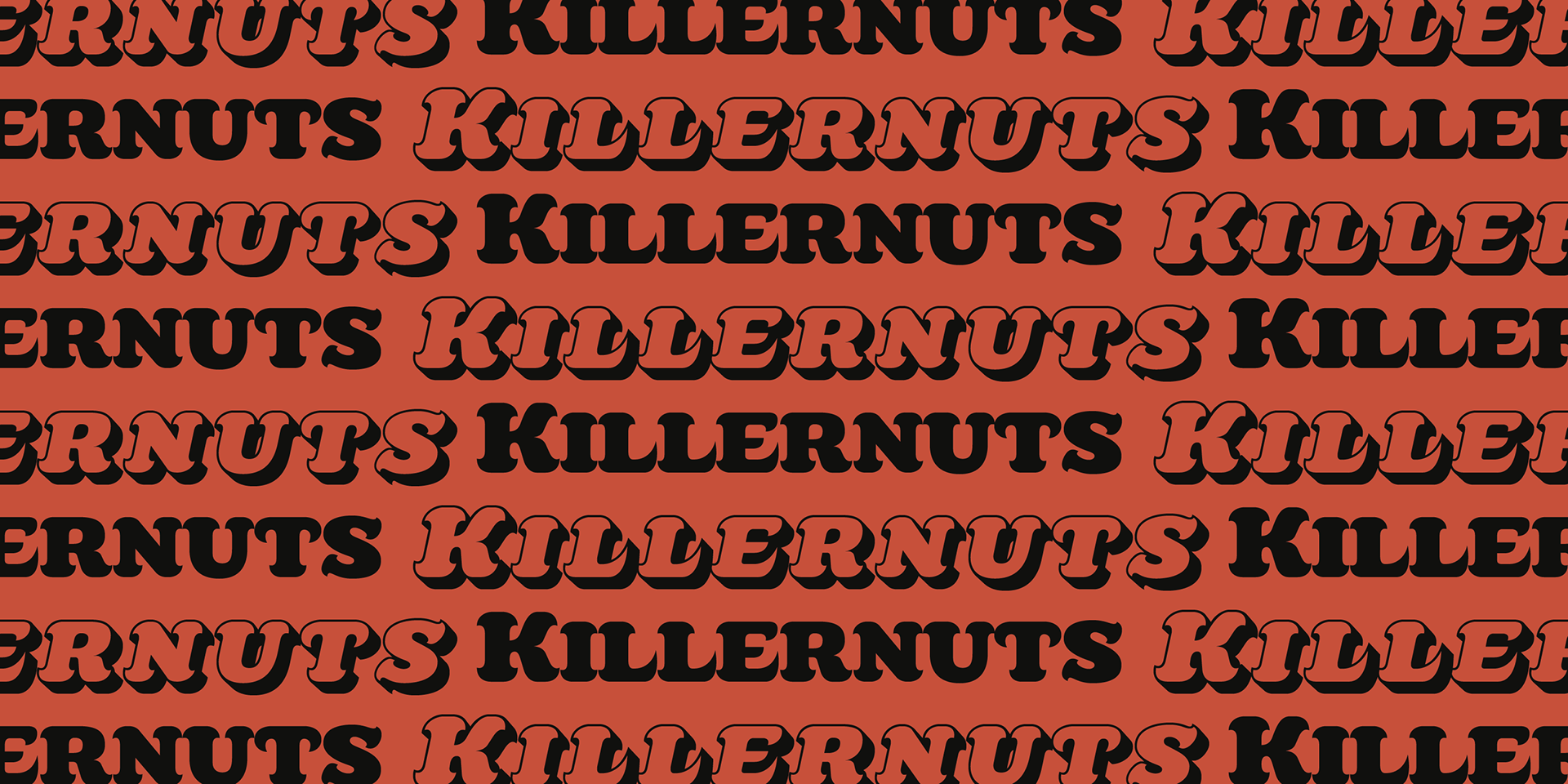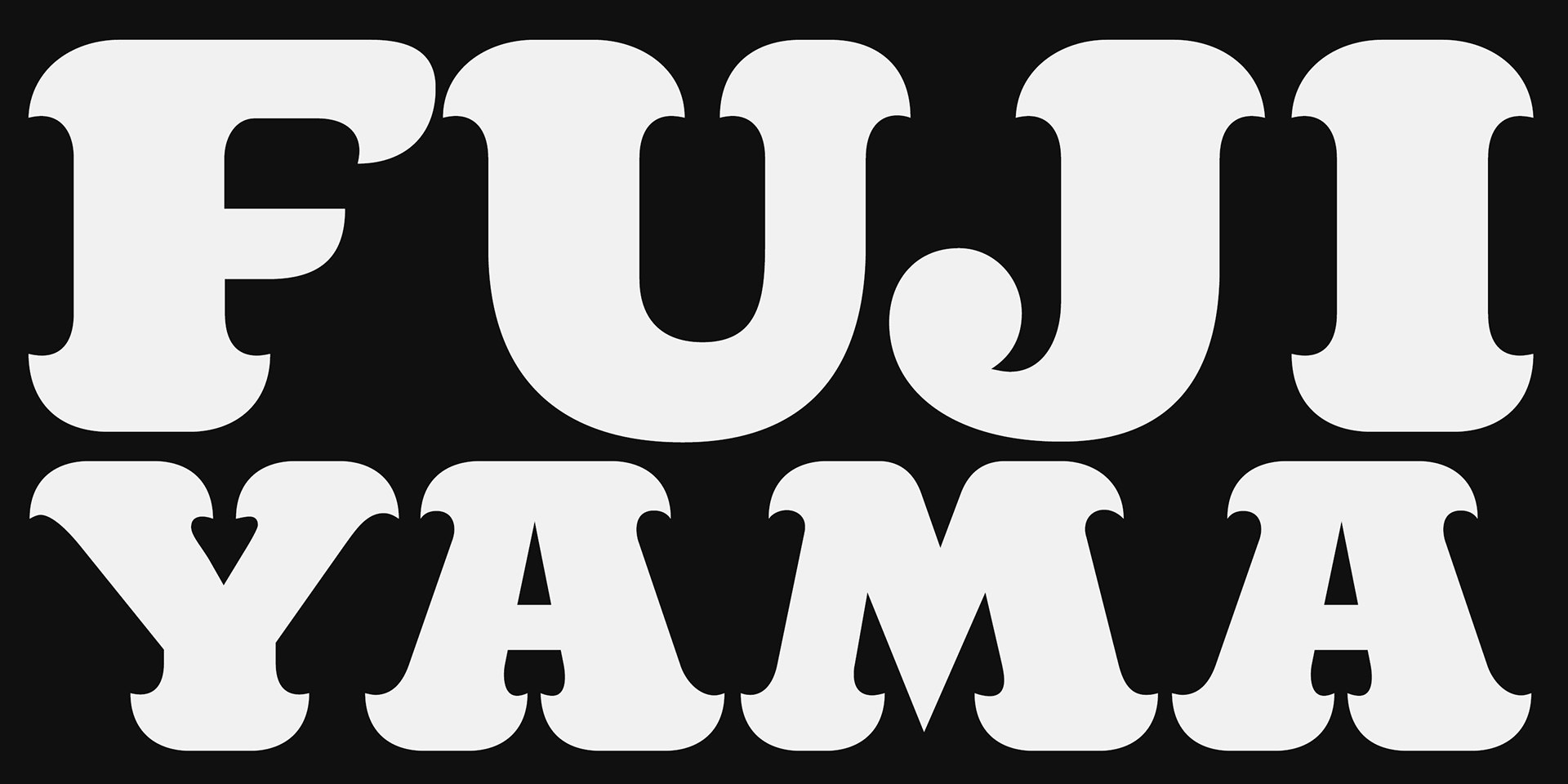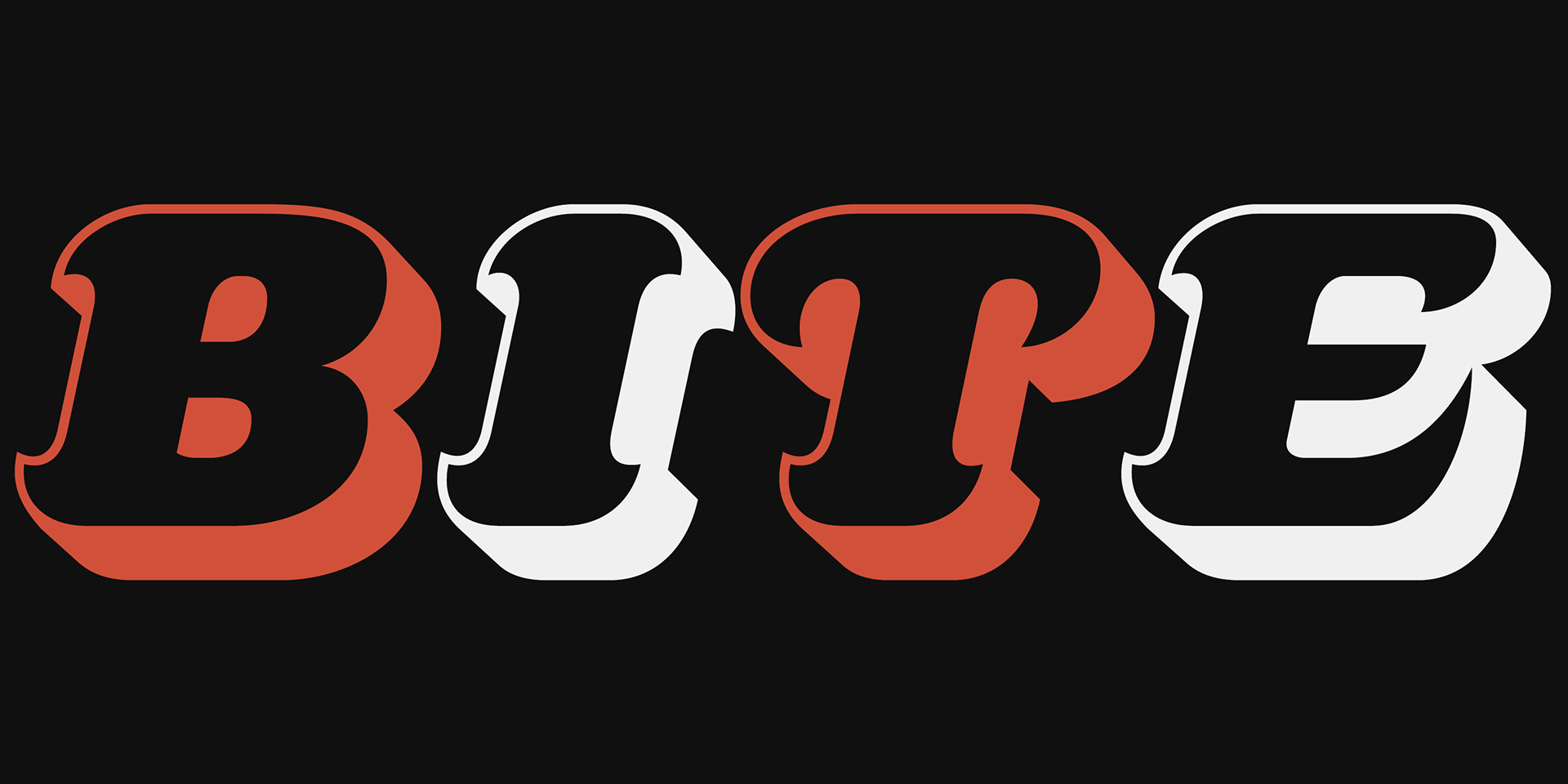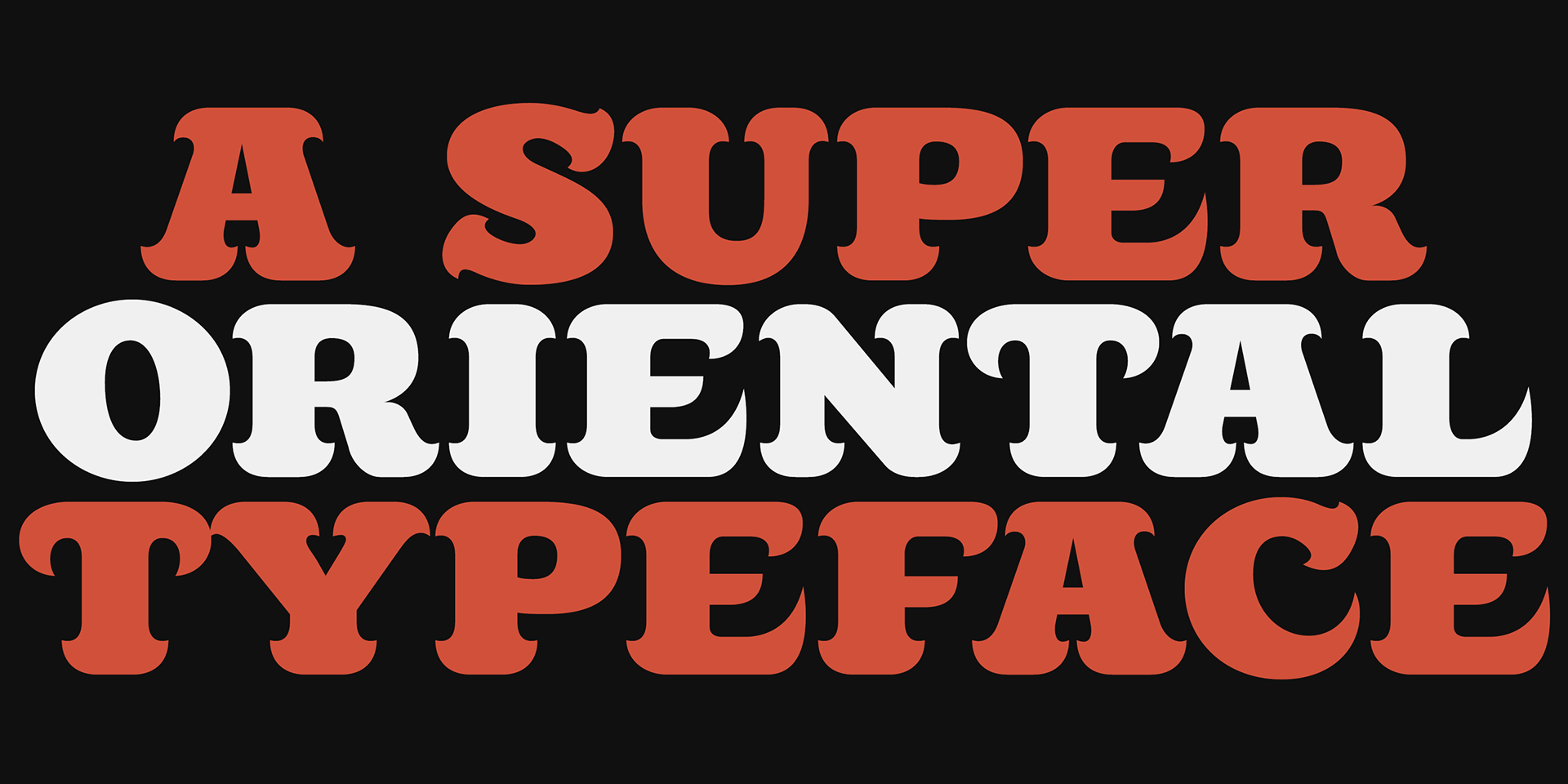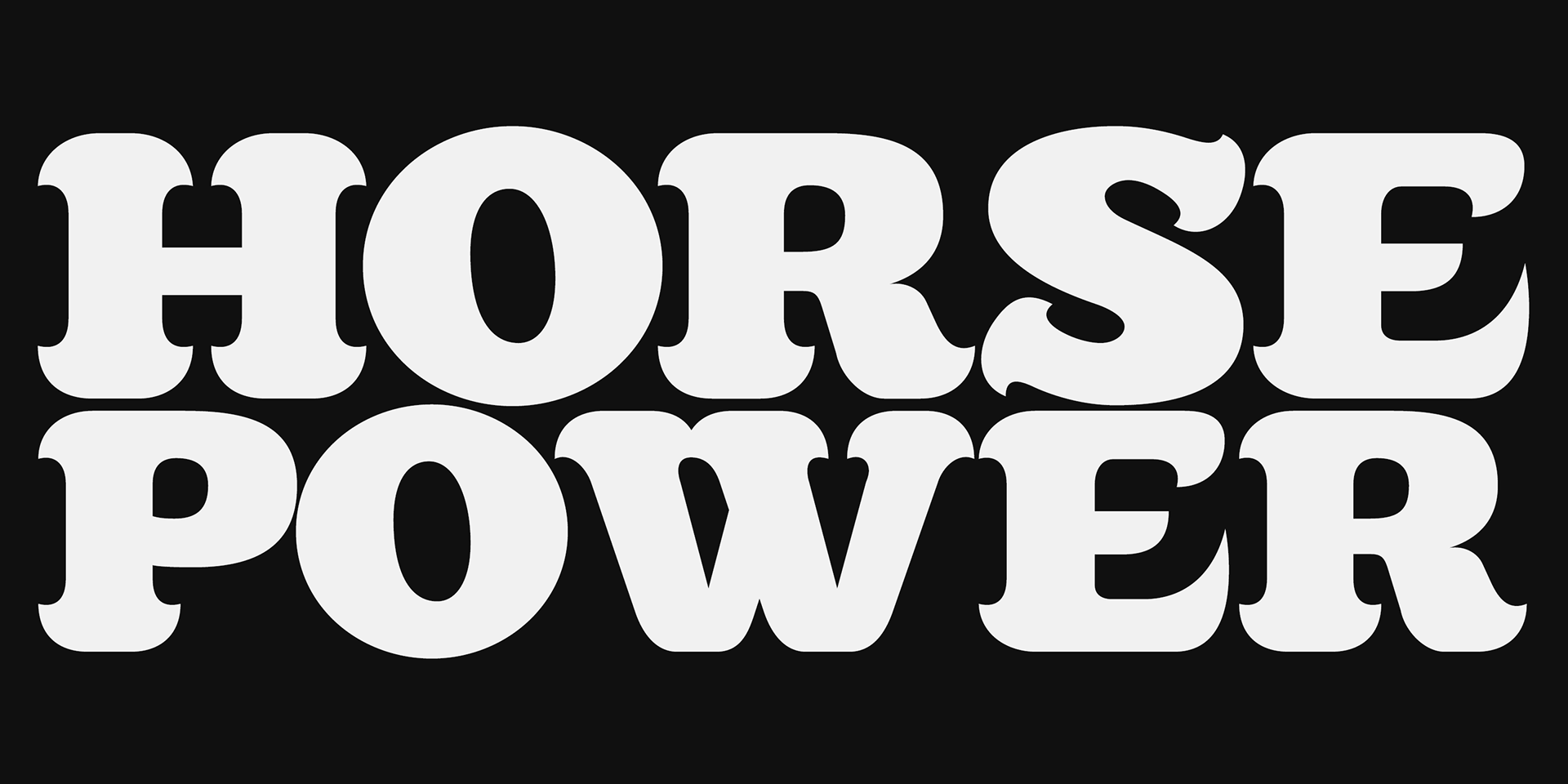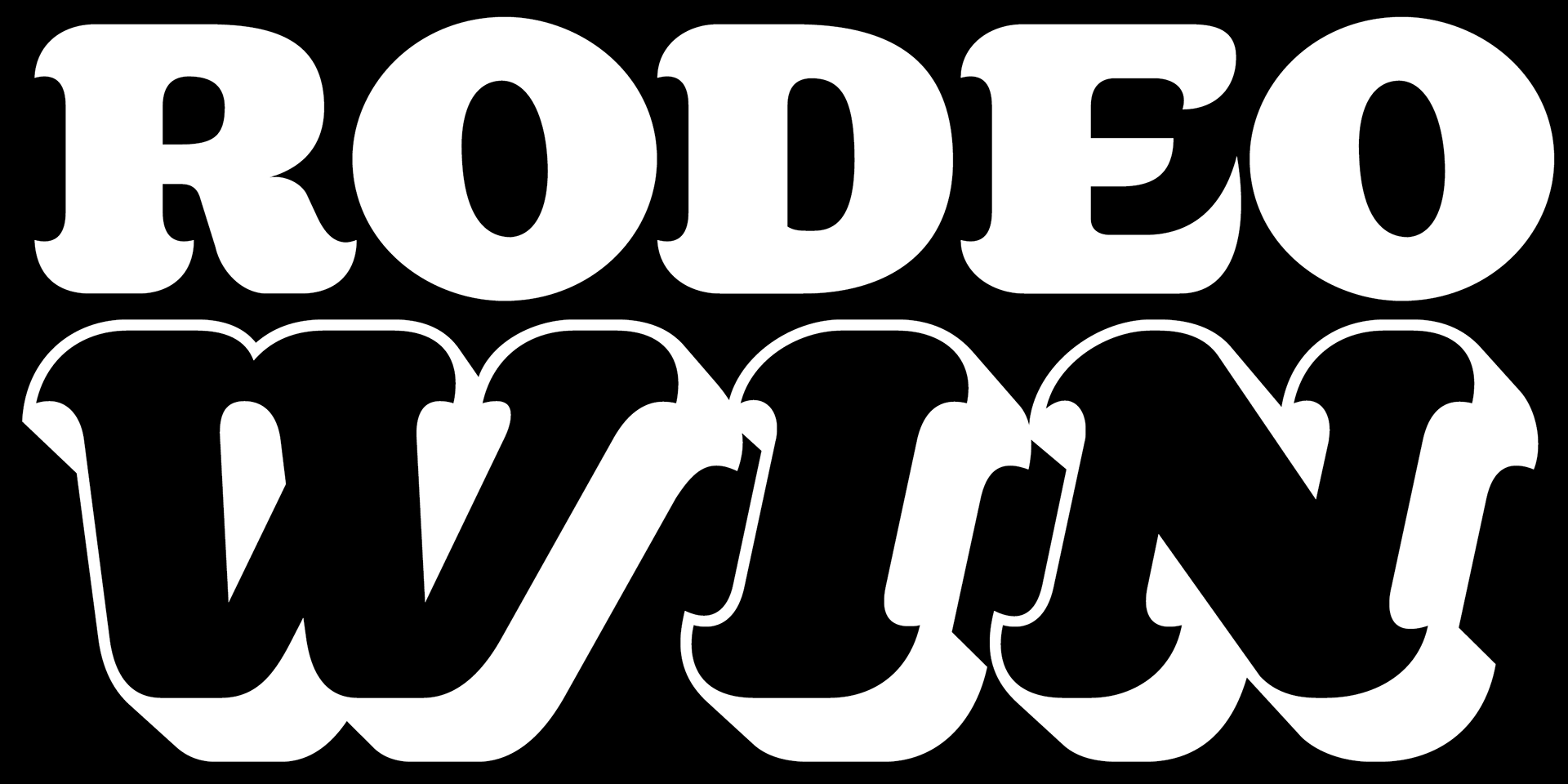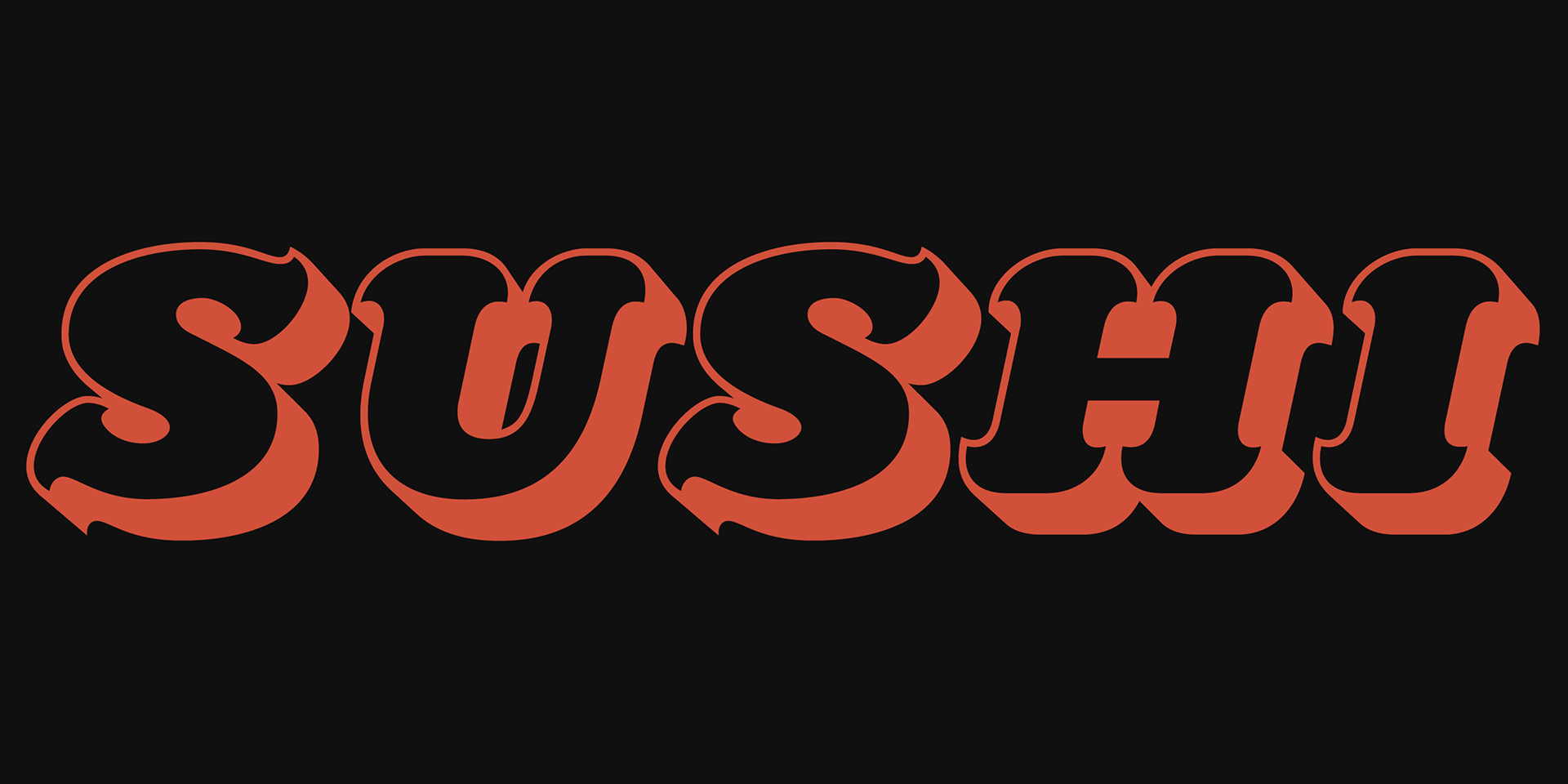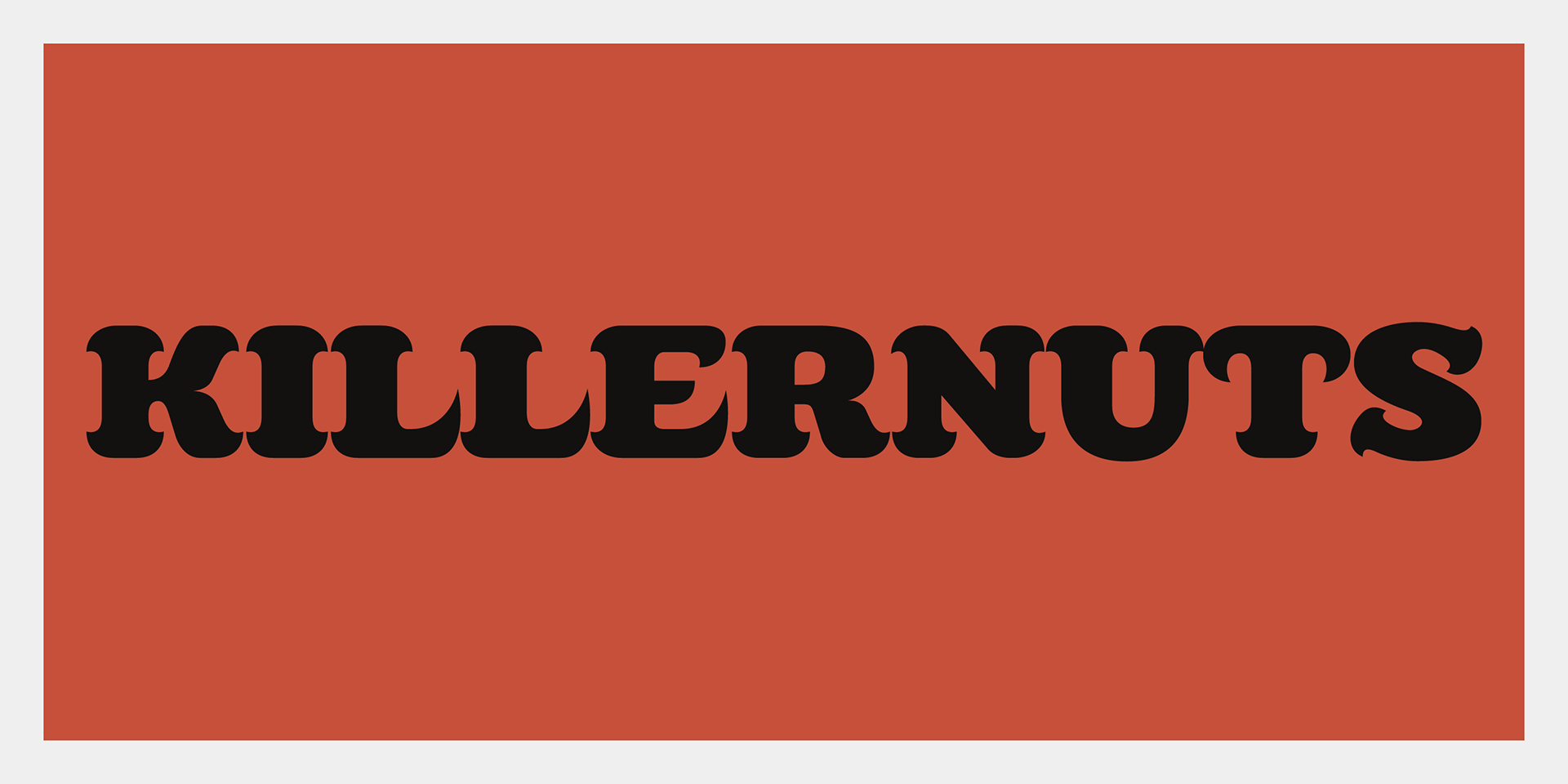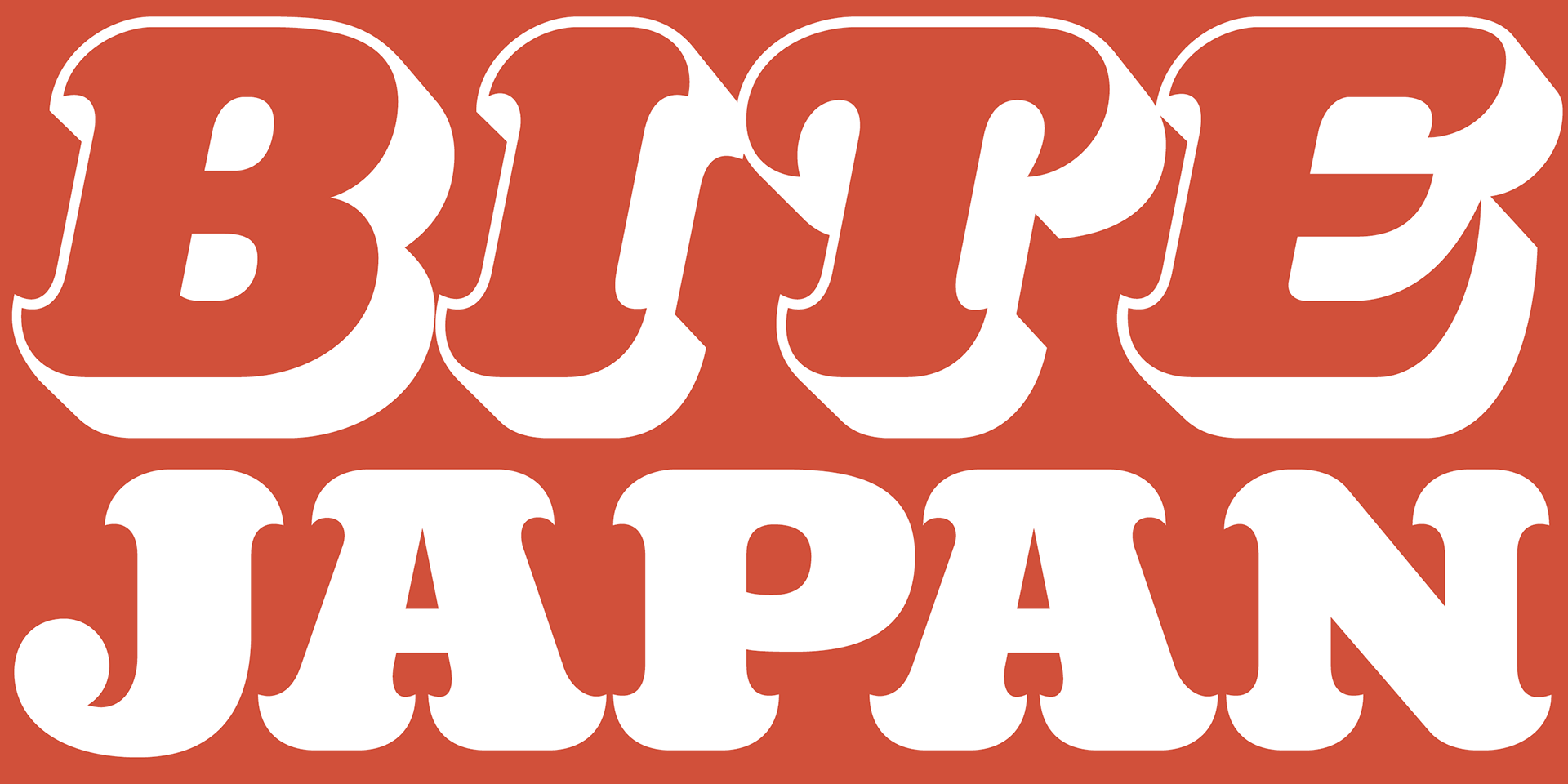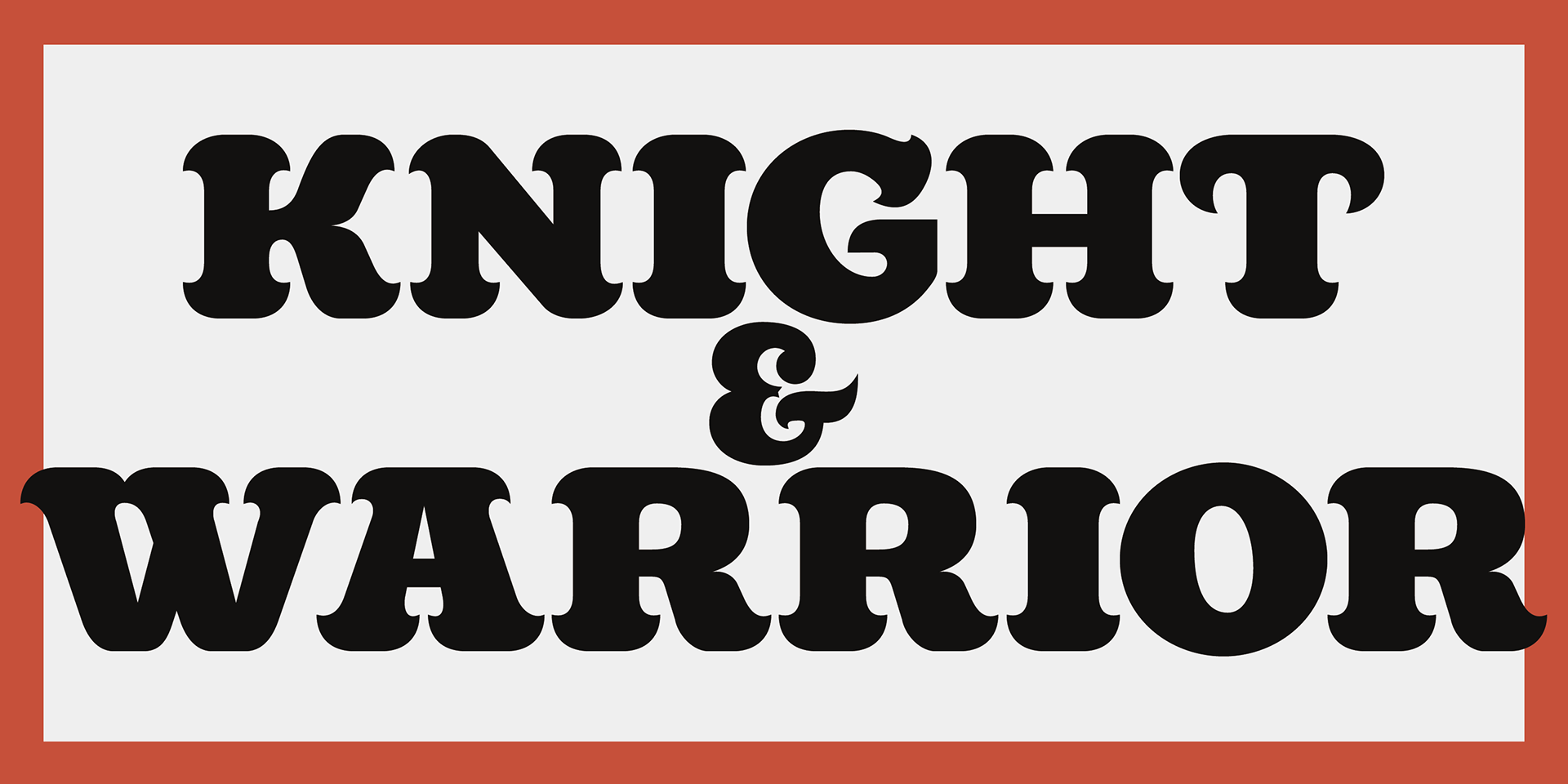
Killernuts
A wood type display font where serifs resemble brush strokes, evoking the spirit of Japanese calligraphy (Shodo).
It’s a striking fusion of Eastern tradition and Western typography—where East meets West in bold, expressive form.